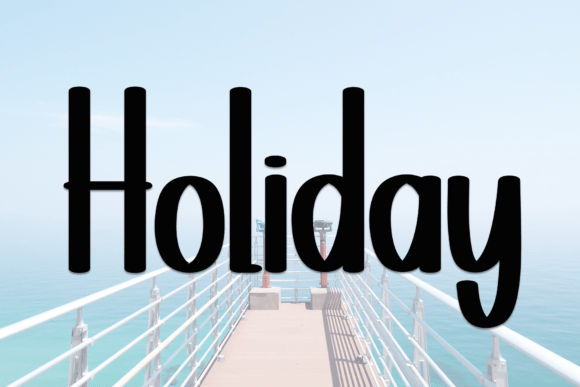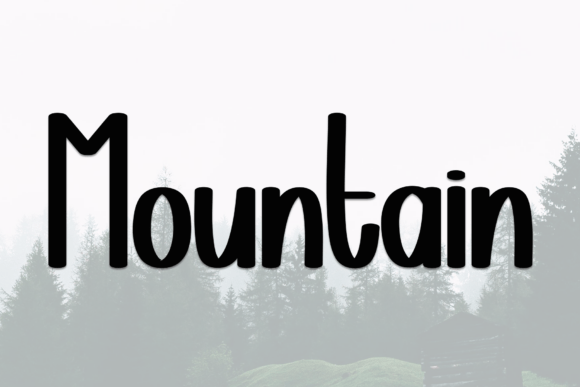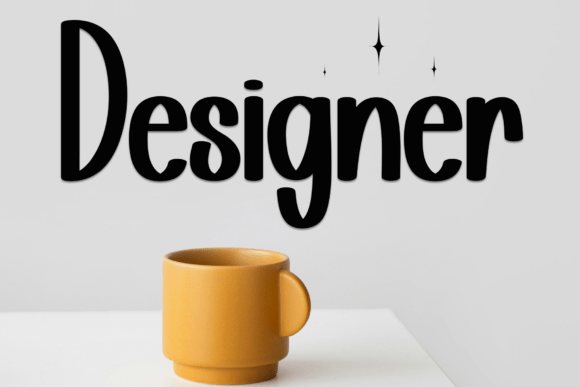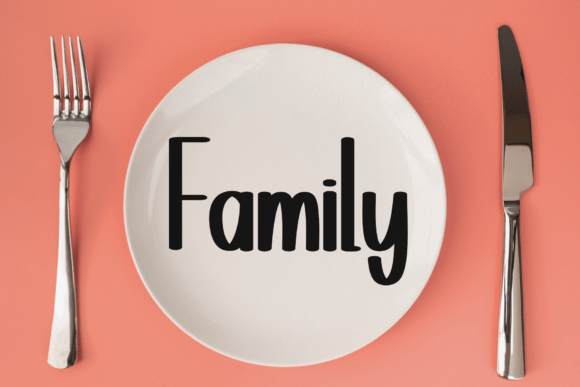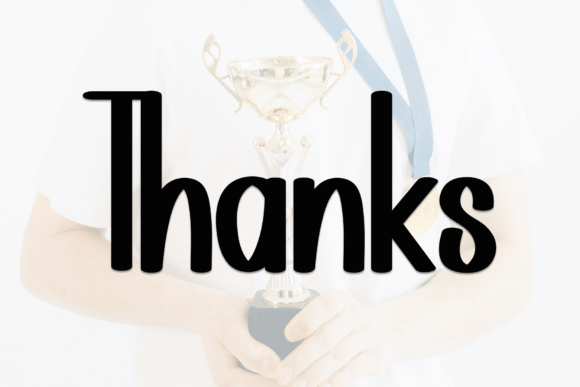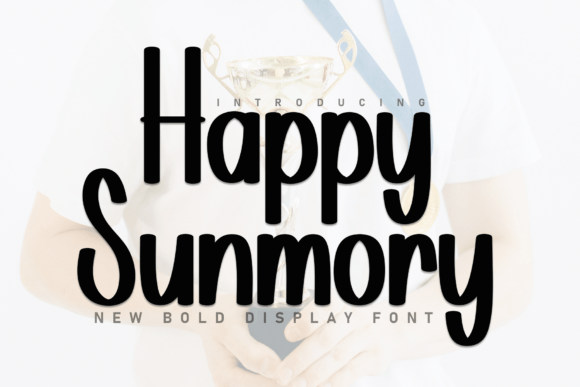
Introducing Happy Sunmory Font: The Perfect Blend of Relaxed and Luxurious
Are you tired of using the same old fonts for your designs? Look no further than Happy Sunmory, a beautiful handwritten font that is sure to elevate your branding, logos, and marketing materials. With its unique marker-drawn aesthetic, Happy Sunmory exudes a relaxed and sporty feel that is perfect for a wide range of design applications.
What is Happy Sunmory Font?
Happy Sunmory is a carefully crafted handwritten font that mimics the look of marker-drawn letters. Its casual, effortless vibe makes it an excellent choice for designers and crafters looking to add a touch of personality to their work. Whether you’re creating a logo, designing a wedding invitation, or developing a marketing campaign, Happy Sunmory is the perfect font to help you achieve a luxurious and elegant look without sacrificing a relaxed, approachable feel.
Key Features of Happy Sunmory Font
- Handwritten with a marker feel: Happy Sunmory’s unique marker-drawn aesthetic sets it apart from other fonts, giving your designs a distinctive and eye-catching look.
- Relaxed and sporty feel: This font’s casual vibe makes it perfect for designs that require a laid-back, effortless feel, such as fashion lookbooks, greeting cards, and marketing promotions.
- Luxurious and elegant: Despite its casual nature, Happy Sunmory still conveys a sense of sophistication and luxury, making it suitable for high-end branding, wedding supplies, and other premium designs.
- Versatile: Happy Sunmory is a versatile font that can be used across a wide range of design applications, from logos and branding to marketing materials and more.
Use Cases for Happy Sunmory Font
Happy Sunmory’s versatility makes it an excellent choice for a variety of design projects, including:
- Branding and logos: Create a unique and memorable brand identity with Happy Sunmory’s distinctive marker-drawn aesthetic.
- Wedding supplies: Add a touch of elegance and sophistication to your wedding designs, such as invitations, programs, and place cards.
- Greeting cards: Create beautiful, heartfelt greeting cards for special occasions, such as birthdays, anniversaries, and holidays.
- Fashion lookbooks: Showcase your fashion designs with a font that exudes a relaxed, sporty feel.
- Marketing promotions: Use Happy Sunmory to create eye-catching marketing materials, such as flyers, brochures, and social media graphics.
Why Choose Happy Sunmory Font?
With so many fonts to choose from, why should you choose Happy Sunmory? Here are just a few reasons:
- Unique aesthetic: Happy Sunmory’s marker-drawn aesthetic sets it apart from other fonts, ensuring your designs stand out from the crowd.
- Flexibility: This font’s versatility makes it suitable for a wide range of design applications, from casual to luxurious.
- Ease of use: Happy Sunmory is easy to use and pairs well with a variety of other fonts, making it simple to incorporate into your designs.
In conclusion, Happy Sunmory is a beautiful, versatile font that is perfect for designers and crafters looking to add a touch of personality to their work. With its unique marker-drawn aesthetic, relaxed and sporty feel, and luxurious and elegant vibe, Happy Sunmory is sure to elevate your designs and help you achieve your creative goals.